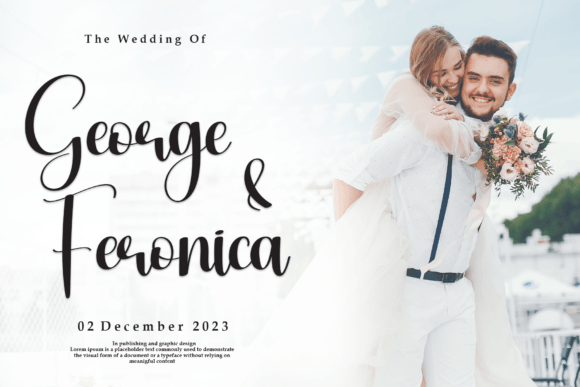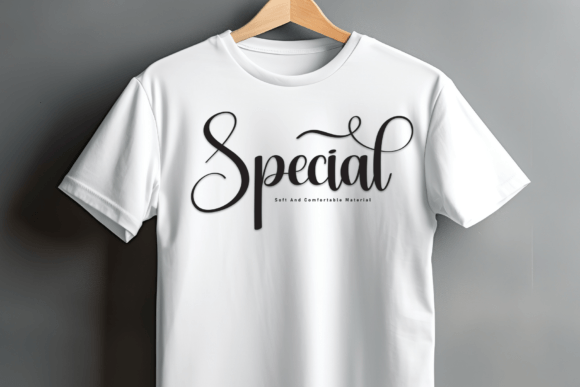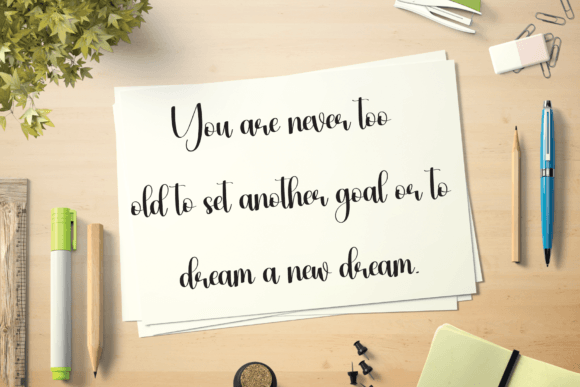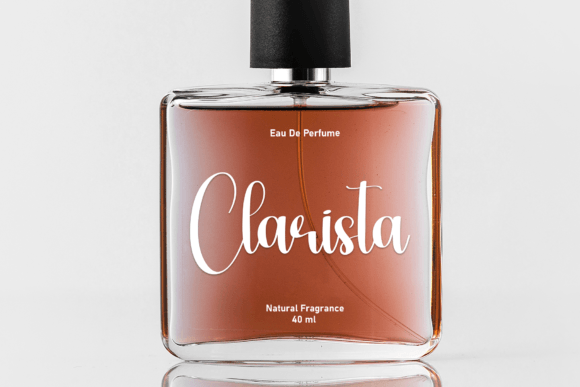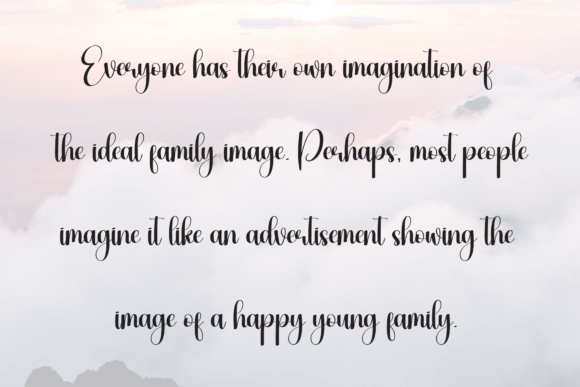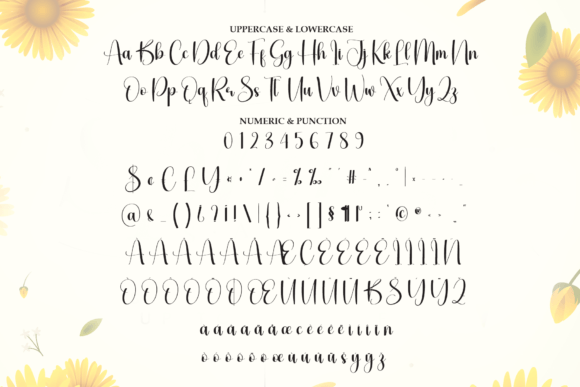
Introduction to Hey Sunflower Font
Have you ever stared at a blank page, trying to come up with the perfect design for your next creative project? The blank canvas can be intimidating, but sometimes all it takes is the right tool to spark inspiration. For designers, finding that perfect font can make all the difference between a good design and a great one.
That’s where the Hey Sunflower Font comes in – a sweet and friendly handwritten font that’s as versatile as it is charming. Its natural and unique style makes it incredibly fitting to a wide range of designs, from social media graphics to wedding invitations, and everything in between. And the best part? It’s available for a free download, making it an accessible design resource for creatives of all levels.
Key Features of Hey Sunflower Font
- Unique Hand-Drawn Design: Hey Sunflower Font is a high-quality, hand-drawn font perfect for adding a personal touch to your creative project.
- Large Character Set: The font includes a large character set, covering a wide range of languages and characters, making it an excellent choice for global design projects.
- Easy Customization: The font’s hand-drawn design makes it easy to customize and manipulate, allowing you to create unique and personalized designs for your creative project.
Honest Review: Hey Sunflower Font
As a designer, I’m always on the lookout for unique and high-quality design resources to elevate my creative projects. The Hey Sunflower Font caught my eye with its cheerful and playful vibe.
- ✨ The font is highly customizable, making it perfect for various design projects, from branding to social media graphics.
- ✨ It comes in a range of styles, from bold to italic, offering endless possibilities for creative expression.
- ✨ The transparent background feature allows for seamless integration with any design element.
- ⚠️ The font may not be suitable for formal or professional designs due to its playful nature.
- ⚠️ Some users may find the font too bright or overwhelming, depending on the project’s tone.
Overall, I’m impressed with the Hey Sunflower Font and its potential to bring a smile to any design project. While it may not be the best fit for every occasion, it’s an excellent addition to any designer’s collection.
The Hey Sunflower Font is a versatile design resource that can be used in various creative projects, such as:
- Blog post headers
- Wedding invitations